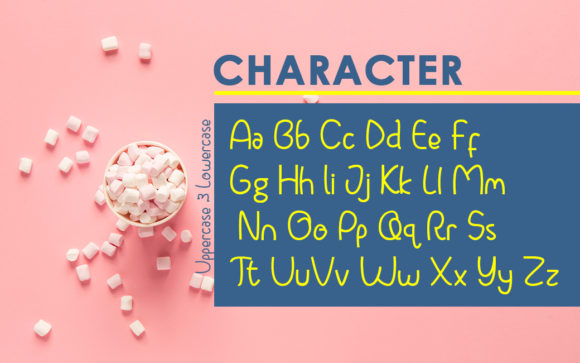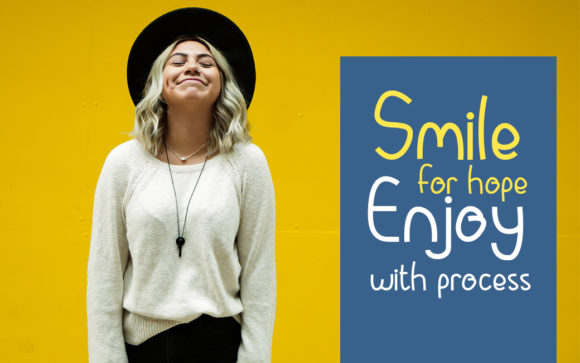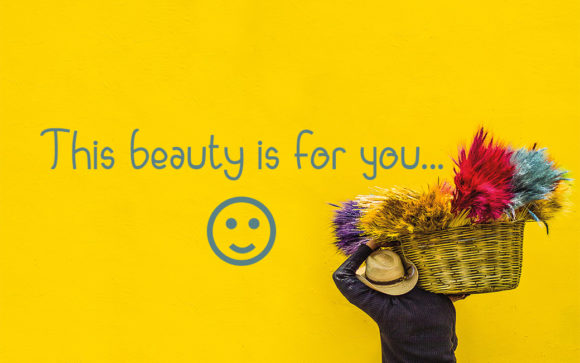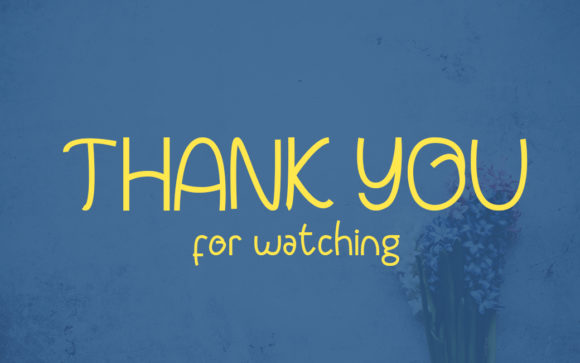
Introducing Bandigell Font: The Ultimate Clean, Modern, and Cute Sans Serif Font
Are you tired of using the same old fonts in your designs? Do you want to add a touch of whimsy and fun to your projects? Look no further than Bandigell Font! This truly original sans serif font is perfect for designers and crafters who want to create modern, clean, and cute designs that stand out from the crowd.
What Makes Bandigell Font So Special?
Bandigell Font is a one-of-a-kind font that combines the simplicity of a sans serif font with a playful twist. Its clean lines and modern aesthetic make it perfect for a wide range of design projects, from branding and logos to crafts and DIY projects. The font’s whimsical touch adds a level of fun and personality to any design, making it ideal for designers who want to create unique and eye-catching work.
Key Features of Bandigell Font
• Clean and Modern Design: Bandigell Font features a clean and modern sans serif design that is perfect for creating contemporary and sophisticated designs.
• Whimsical Twist: The font’s playful twist adds a level of fun and personality to any design, making it ideal for designers who want to create unique and eye-catching work.
• Truly Original: Bandigell Font is a truly original font, ensuring that your designs will stand out from the crowd and won’t be easily replicable with other fonts.
• Easy to Read: The font is highly legible, making it perfect for use in body text, headings, and titles.
• Versatile: Bandigell Font is versatile and can be used for a wide range of design projects, from branding and logos to crafts and DIY projects.
Who Can Benefit from Using Bandigell Font?
Bandigell Font is perfect for a wide range of designers and crafters, including:
• Graphic Designers: Bandigell Font is ideal for graphic designers who want to create modern, clean, and cute designs for their clients.
• Crafters: The font is perfect for crafters who want to add a personal touch to their DIY projects, such as handmade cards, gift tags, and scrapbooking.
• Branding Experts: Bandigell Font can be used by branding experts to create unique and memorable logos and brand identities.
• Small Business Owners: The font is ideal for small business owners who want to create a professional and modern brand image.
How to Use Bandigell Font in Your Designs
Using Bandigell Font in your designs is easy! Here are a few tips to get you started:
• Pair it with Other Fonts: Bandigell Font can be paired with other fonts to create a unique and interesting contrast.
• Experiment with Colors: The font looks great in a variety of colors, so don’t be afraid to experiment and find the perfect hue for your design.
• Use it for Headings and Titles: Bandigell Font is perfect for use in headings and titles, where its clean and modern design can really shine.
In conclusion, Bandigell Font is a truly original and fun sans serif font that is perfect for designers and crafters who want to create modern, clean, and cute designs. Its whimsical twist adds a level of personality and fun to any design, making it ideal for a wide range of projects. With its clean lines, modern aesthetic, and high legibility, Bandigell Font is sure to become a favorite in your design arsenal.